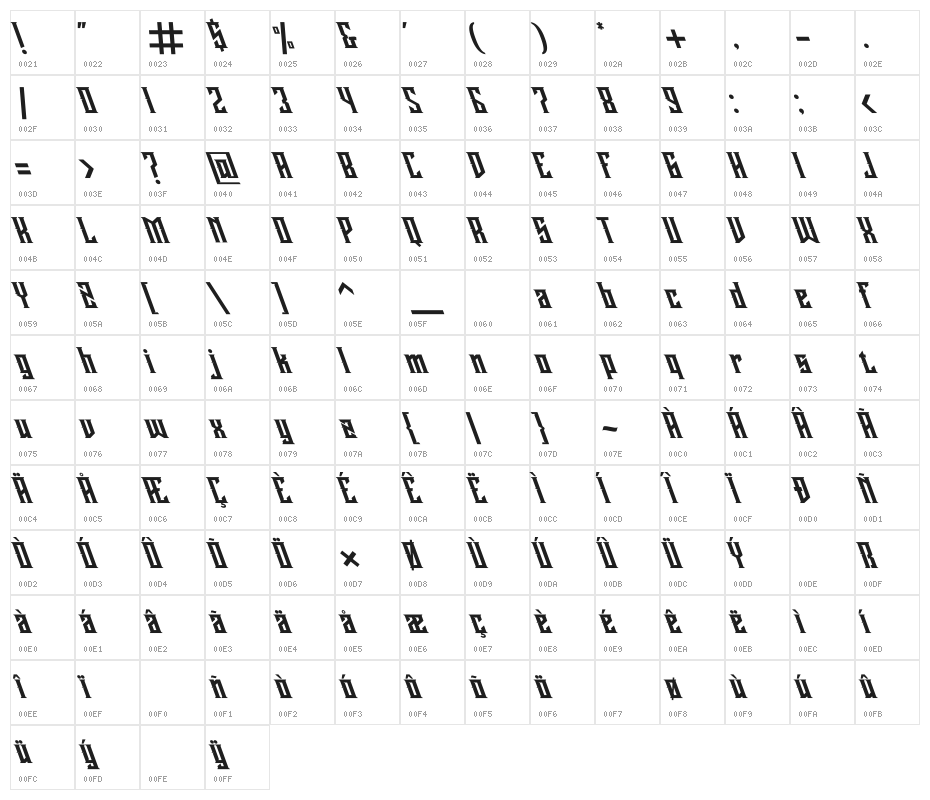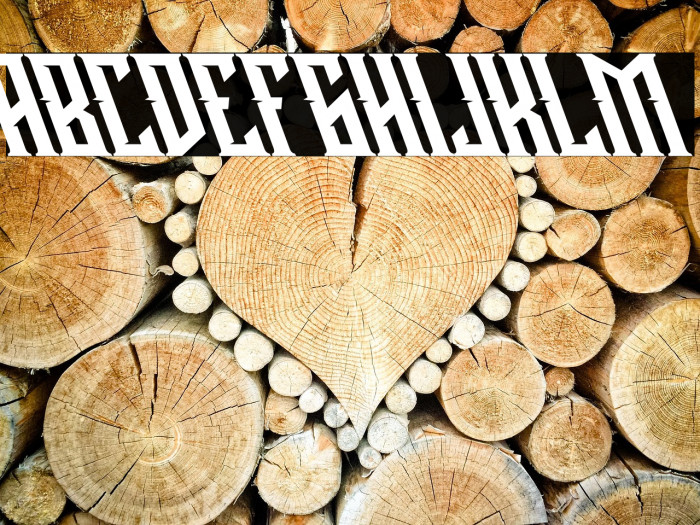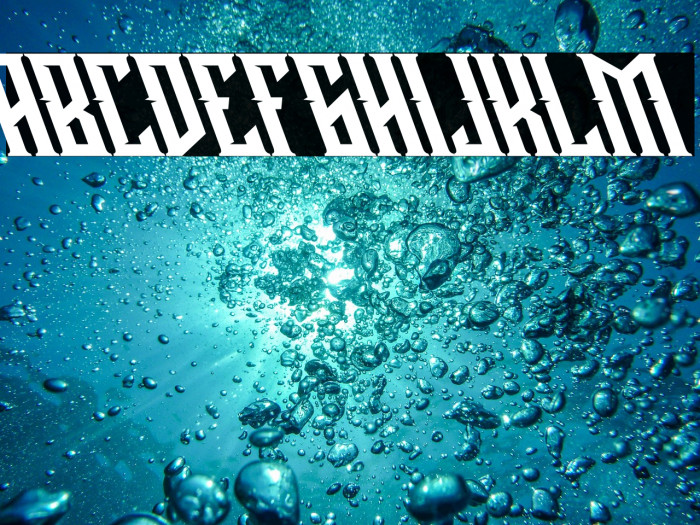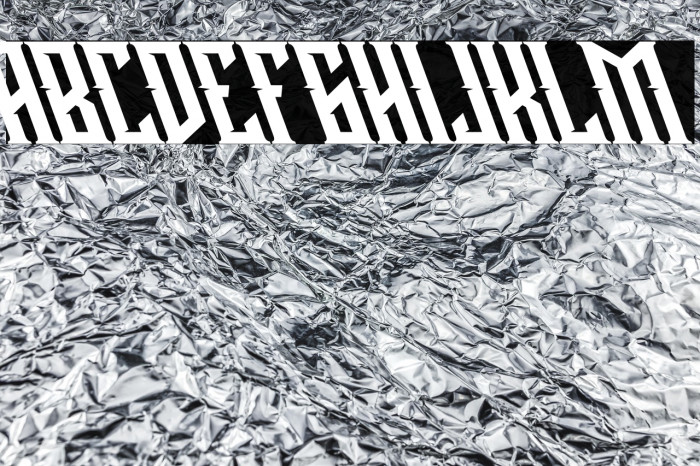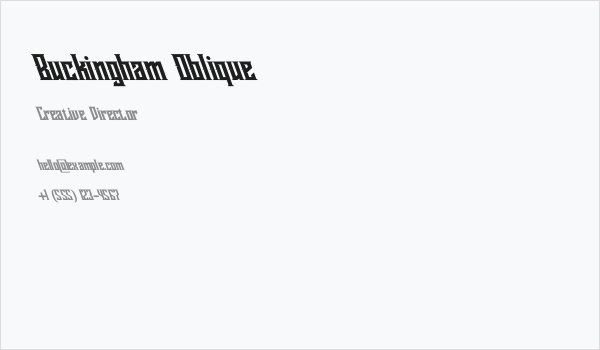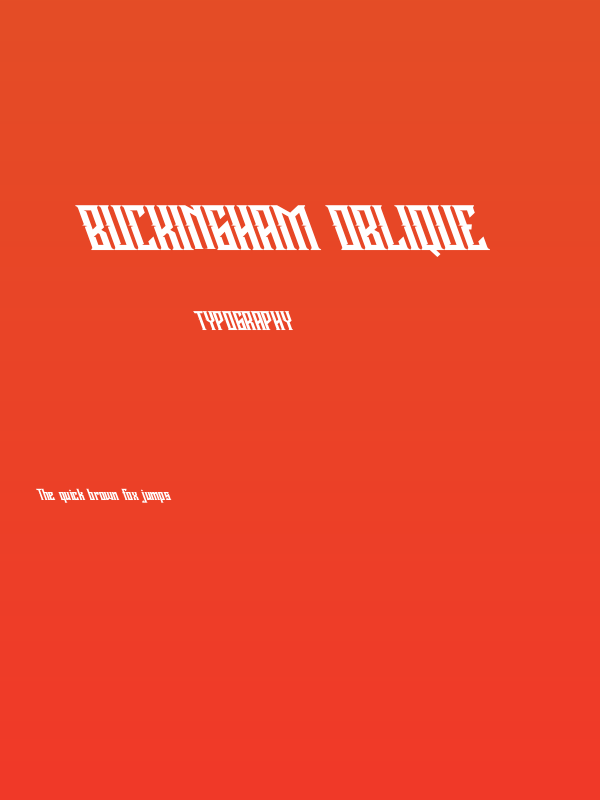
Buckingham Oblique Font
Buckingham Oblique Description
This font exhibits a bold and dynamic style with sharp, angular lines and a distinct oblique slant. The characters are heavily stylized, featuring pointed edges and a strong geometric influence. The uppercase and lowercase letters maintain a consistent design, emphasizing a sense of movement and energy. The numbers and special characters follow the same angular theme, creating a cohesive and striking appearance. This font's unique design makes it stand out, ideal for projects that require a bold statement.
Proposed ProjectsIdeal for branding, posters, album covers, and any design that requires a bold, eye-catching typeface.